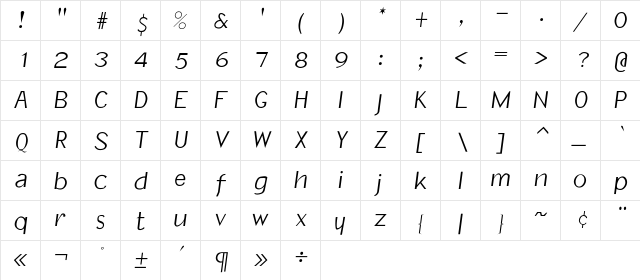
SlantInformal- Regular
Design Context for SlantInformal- Typeface
SlantInformal- offers clean, dependable letterforms without strong stylistic allegiance, making it a practical choice for designers who need flexibility.
Pro Tip: Pair SlantInformal- with a font of contrasting weight or personality to build a more expressive typographic hierarchy.